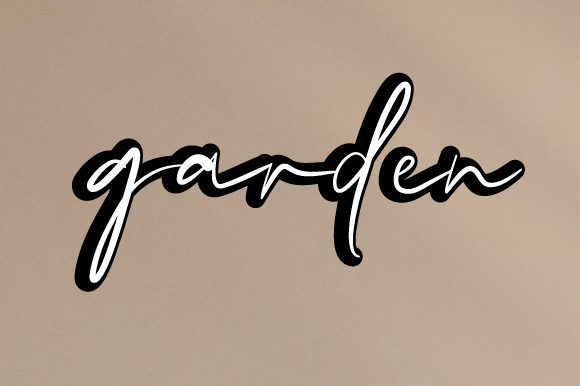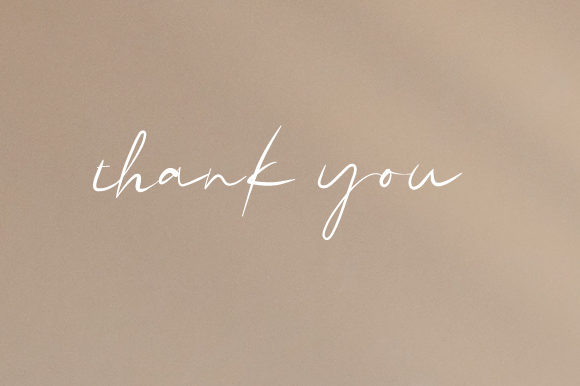
Zeremony Font
About Zeremony Font
Zeremony is an attractive and simple handwritten font with a curved blend style. This font is suitable for t-shirts, writing on paper and more.